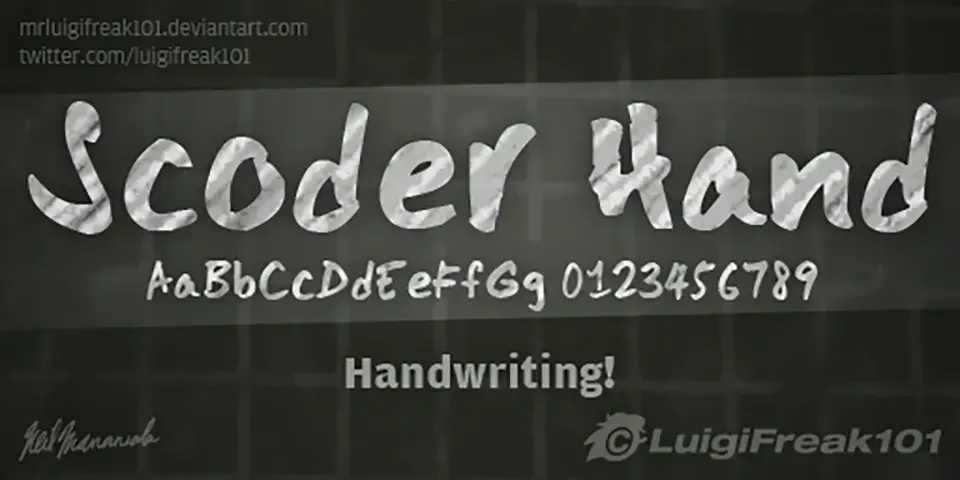
Scoder Hand Font
Scoder Hand is a delightfully casual handwritten typeface featuring irregularly shaped letters that appear as though written quickly and spontaneously with a thick marker or pen. The font’s organic, sketchy aesthetic brings a fun and whimsical vibe to any design project. With its informal charm and natural imperfections, Scoder Hand is ideal for greeting cards, party invitations, creative posters, social media graphics, and any design requiring a personal touch and genuine handwritten feel.